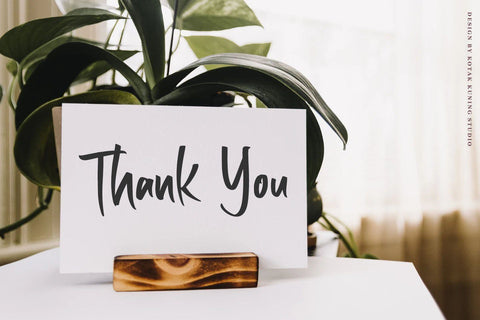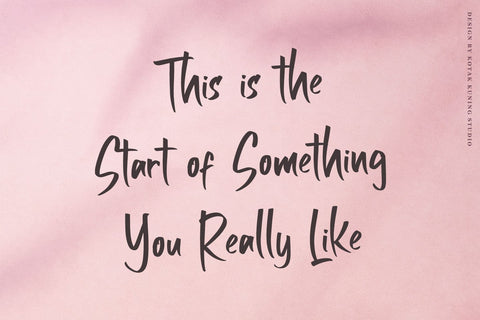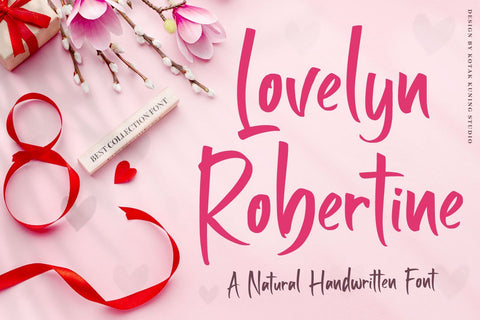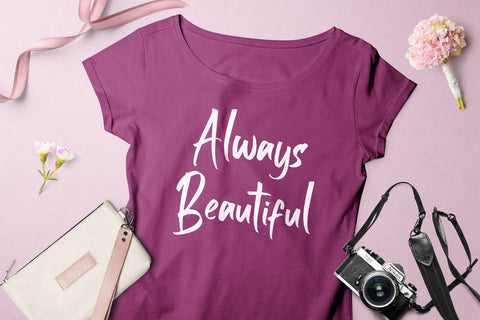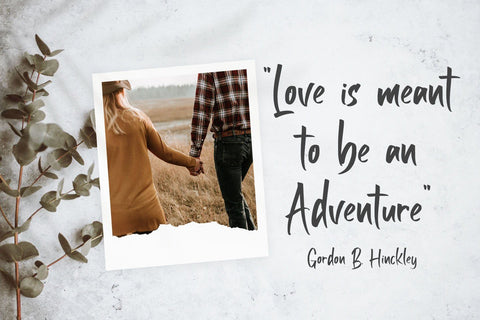
Lovelyn Robertine Handwritten Font
Lovelyn Robertine is a cute handwritten font. It features an incredibly classic style, while still keeping a friendly feel. Lovelyn Robertine is the perfect font for making original and outstanding designs.
Lovelyn Robertine would be perfect for logos & branding, photography, watermark, social media posts, advertisements, invitation, product designs, label, stationery, product packaging, special events or anything that need handwriting taste.